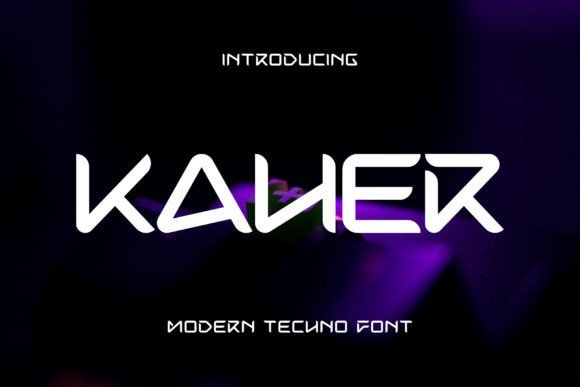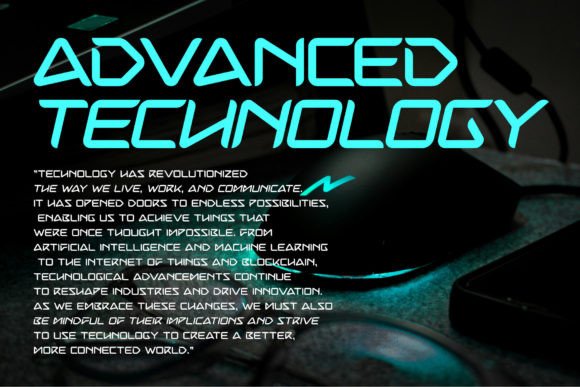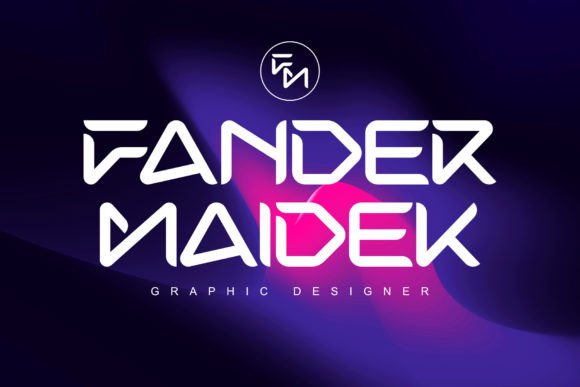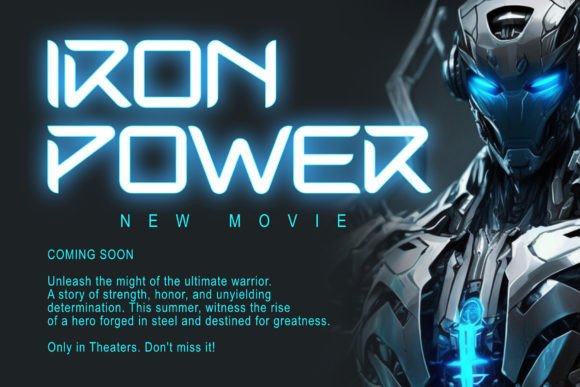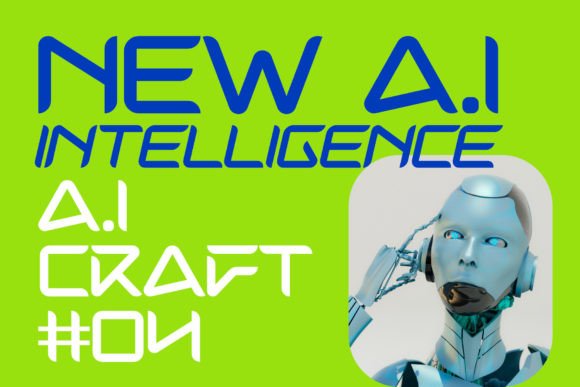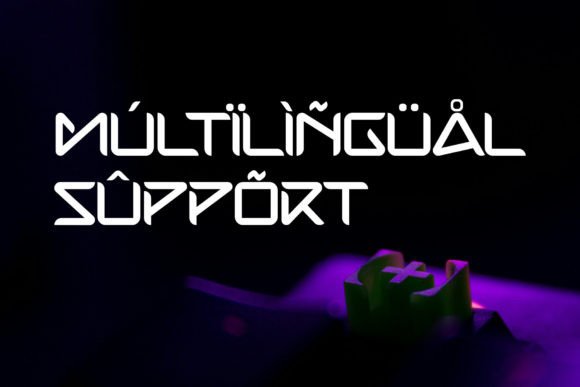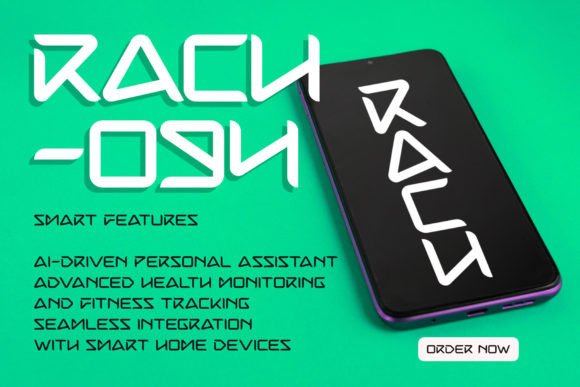
Unleashing Creativity with Kaher Font
Have you ever stared at a blank page, waiting for inspiration to strike? That’s exactly what happened to me last week while working on a branding project. I was searching for the perfect font to give my design a modern twist, and that’s when I stumbled upon Kaher – Modern Techno Font. This sleek and sophisticated font has been a game-changer for designers looking to elevate their work.
Kaher Font is a contemporary corporate font designed to make a lasting impression. With its balanced, modern, and minimalist design, it’s perfect for a wide range of projects, from logos to social media posts. What sets Kaher apart is its versatility and ability to adapt to any design style. For designers, having access to a font like Kaher Font is invaluable, as it saves time and ensures a consistent look across all projects.
Kaher Font Key Features
- Font Family: Kaher Font is a modern sans-serif font family designed for digital use.
- Unique Characteristics: Kaher Font features a unique blend of geometric and organic shapes, resulting in a clean and modern aesthetic.
Kaher Font Review
I recently had the chance to work with the Kaher font, and I must say it’s been an interesting experience. ✨ The font’s unique blend of modern and traditional elements really sets it apart from other sans-serif fonts.
Here are some things that work well with Kaher:
- ✨ The font’s legibility is excellent, making it perfect for body text and articles.
- ✨ The font’s x-height is well-proportioned, which makes it easy to read even at smaller font sizes.
- ✨ The font’s bold weight is particularly striking, adding a touch of sophistication to headings and titles.
- ⚠️ The font’s italics are a bit lacking, and may not be suitable for certain applications.
- ⚠️ The font’s bold weight can be a bit overwhelming in certain contexts, so it’s best to use it sparingly.
Overall, I’d say Kaher is a solid choice for designers looking for a modern sans-serif font. While it may not be perfect, its unique style and excellent legibility make it a great addition to any design project.
Kaher Font is ideal for use in branding, logos, and typography-based designs.
For best results, use Kaher Font in conjunction with bold, modern designs.
Alternatives to Kaher Font
Open Sans is a modern sans-serif font designed by Steve Matteson. It is highly legible and suitable for body text, headings, and display purposes. When to use: For digital products, web design, and print materials where a clean and neutral font is required.
Open Sans compares to Kaher Font in its clean and modern aesthetic, but has a more neutral tone and wider range of weights. It is also more versatile and widely supported in various design applications.
Lato is a sans-serif font designed by Łukasz Dziedzic. It has a clean and elegant appearance, making it suitable for a wide range of applications, from body text to display purposes. When to use: For branding, advertising, and editorial design where a sophisticated and modern font is required.
Lato compares to Kaher Font in its modern and elegant aesthetic, but has a more refined and polished appearance. It also has a wider range of weights and is highly customizable.
Montserrat is a sans-serif font designed by Julieta Ulanovsky. It has a strong and urban feel, making it suitable for display purposes and titles. When to use: For urban and modern designs, such as street art, graffiti, and editorial design.
Montserrat compares to Kaher Font in its modern and edgy aesthetic, but has a more geometric and industrial appearance. It is also highly customizable and has a wide range of weights.
Inter is not a suitable replacement for Kaher Font as it is a sans-serif font designed by Rasmus Andersson, with a clean and neutral aesthetic. It is suitable for digital products, web design, and print materials where a